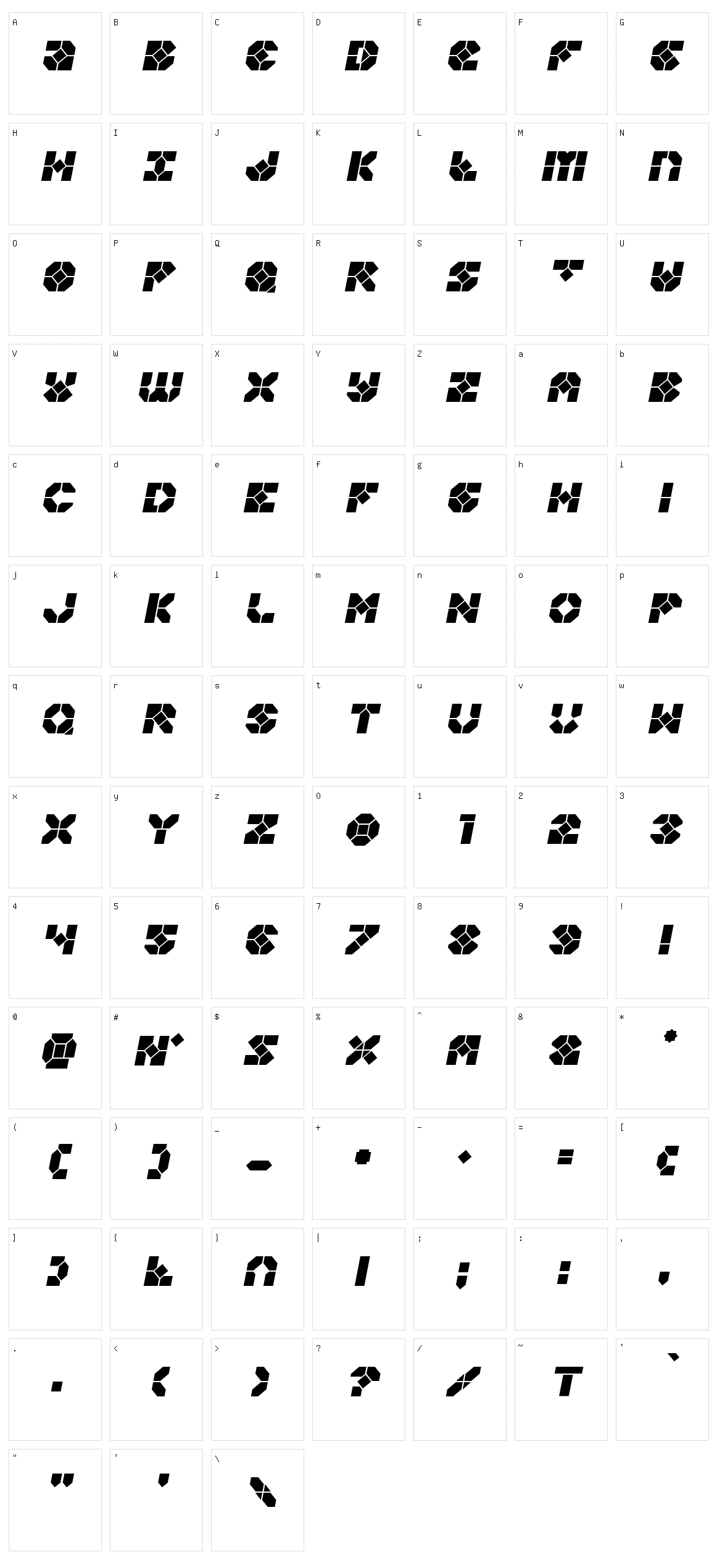
Zoomrunner
This font comes with the following 27 versions: Regular, Italic, Semi-Italic, Super-Italic, Leftalic, Condensed, Condensed Italic, Expanded, Expanded Italic, 3D, 3D Italic, Gradient, Gradient Italic, Halftone, Halftone Italic, Laser, Laser Italic, Chrome, Chrome Italic, Title, Title Italic, Punch, Punch Italic, Academy, Acadmey Italic, Engraved and Engraved Italic.